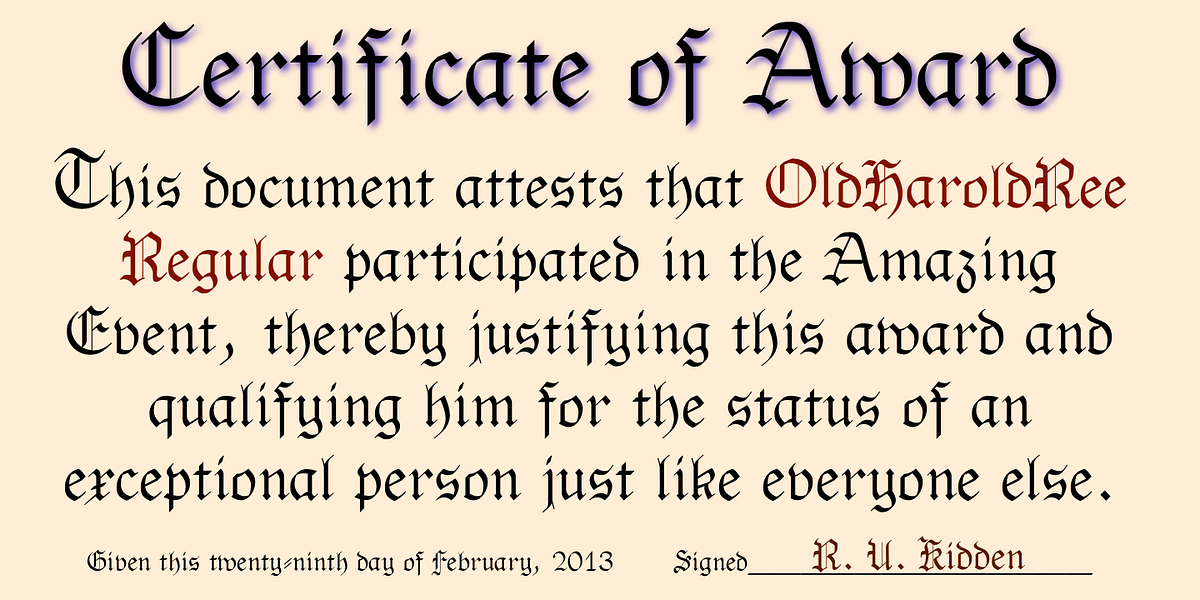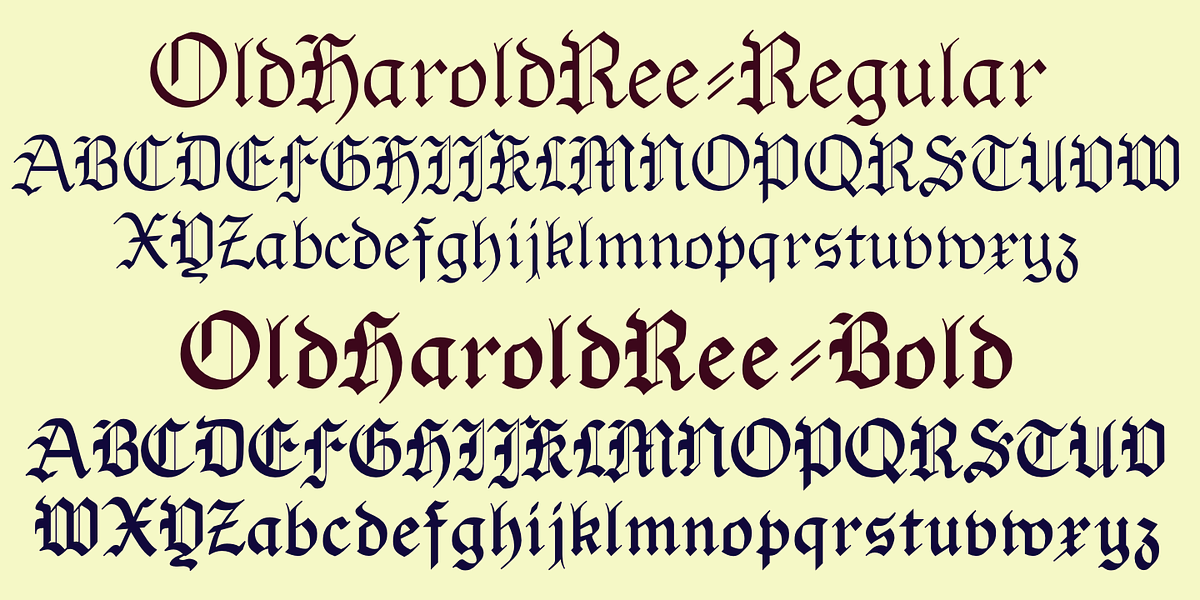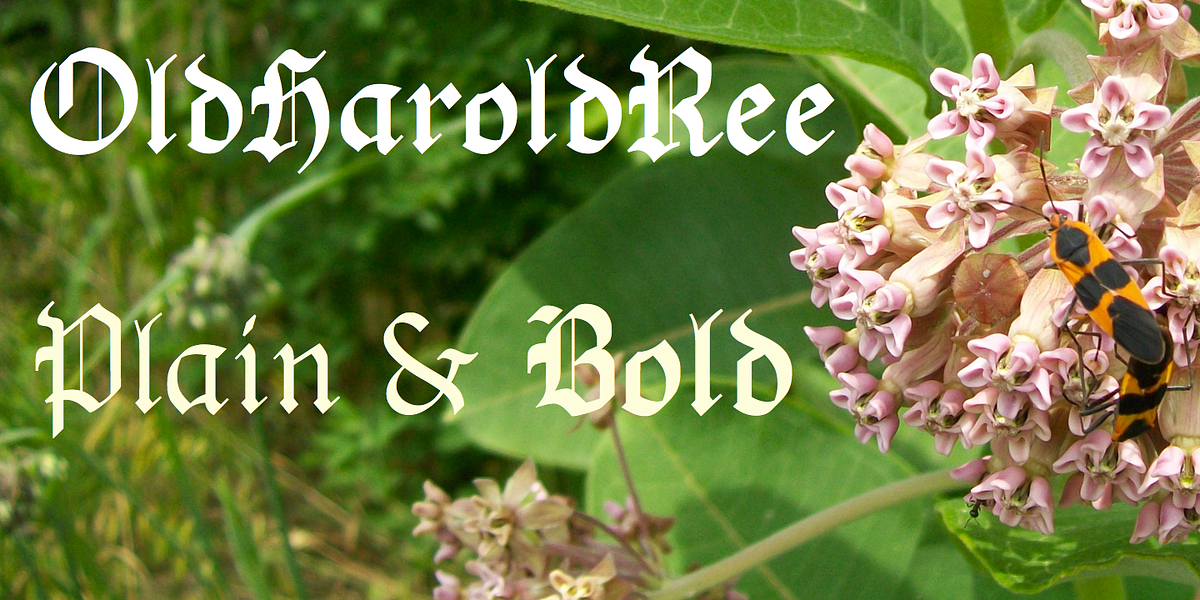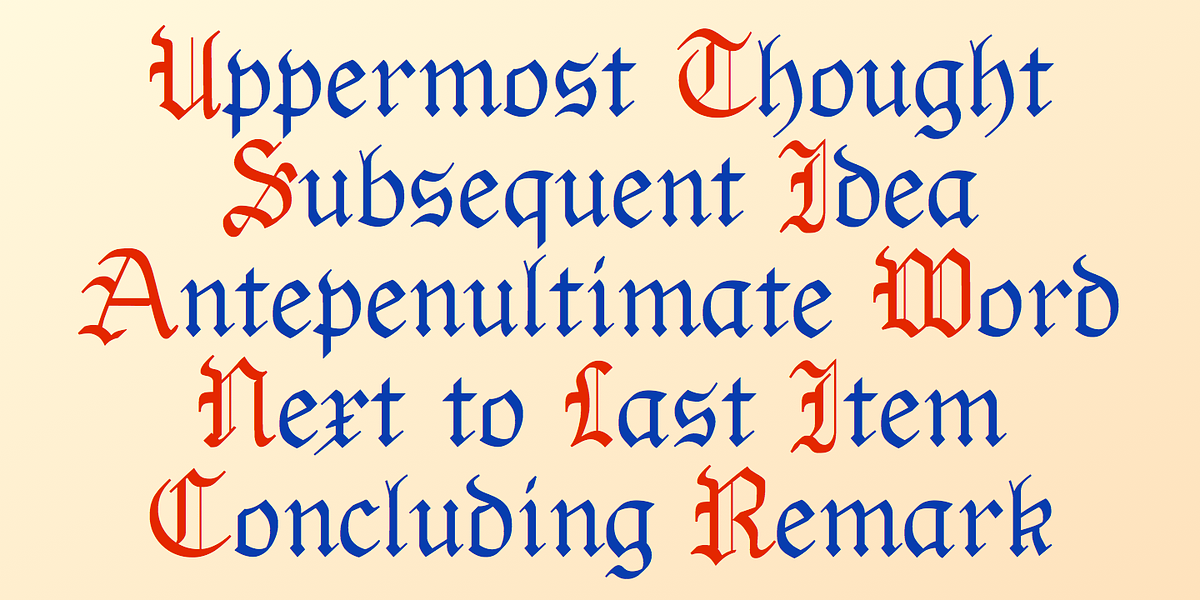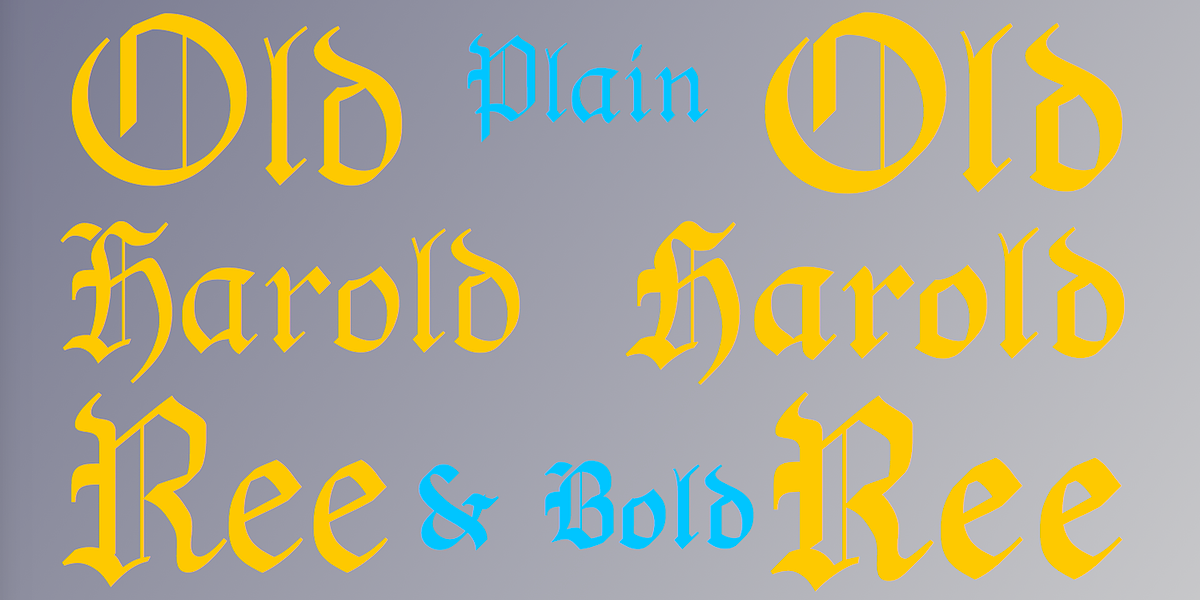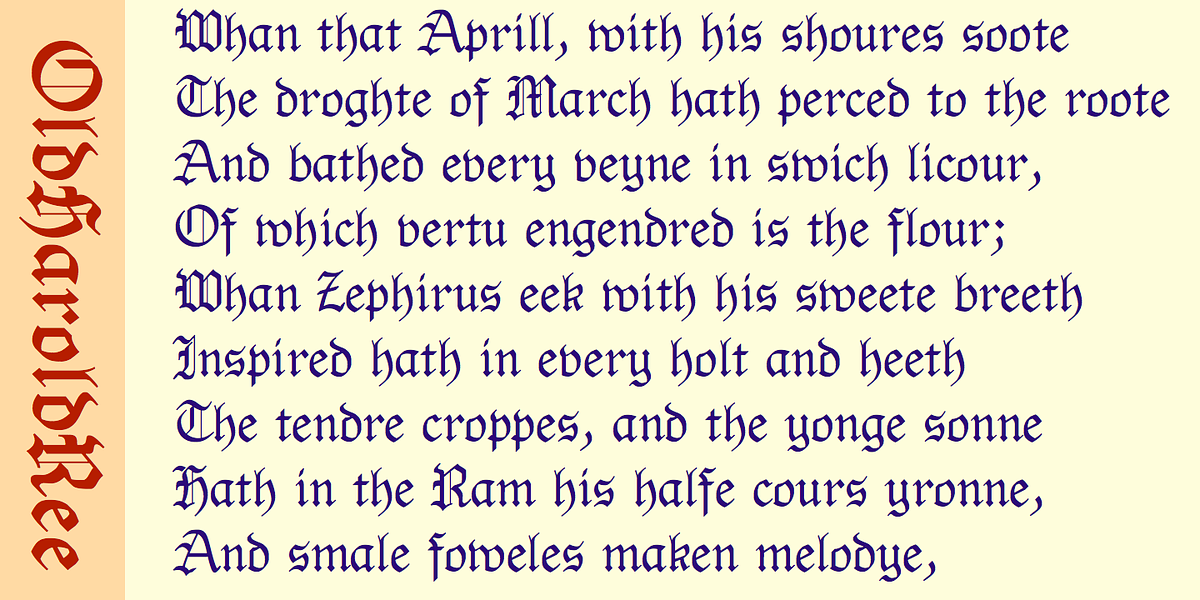
OldHaroldRee
OldHaroldRee is a unique blackletter typeface that combines the calligraphic flow of fraktur lowercase letters with the stately uppercase characters of Old English script. This unusual blend results in a font suitable for display purposes and projects requiring a historical aesthetic.